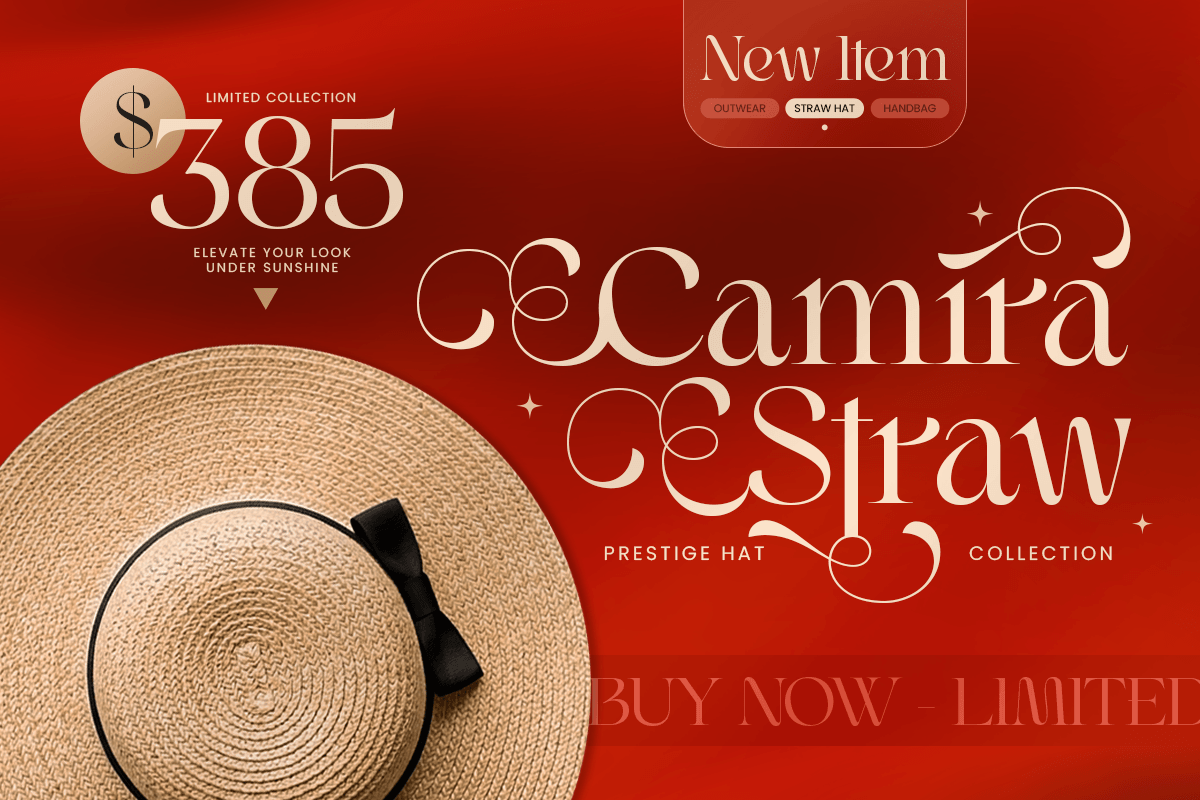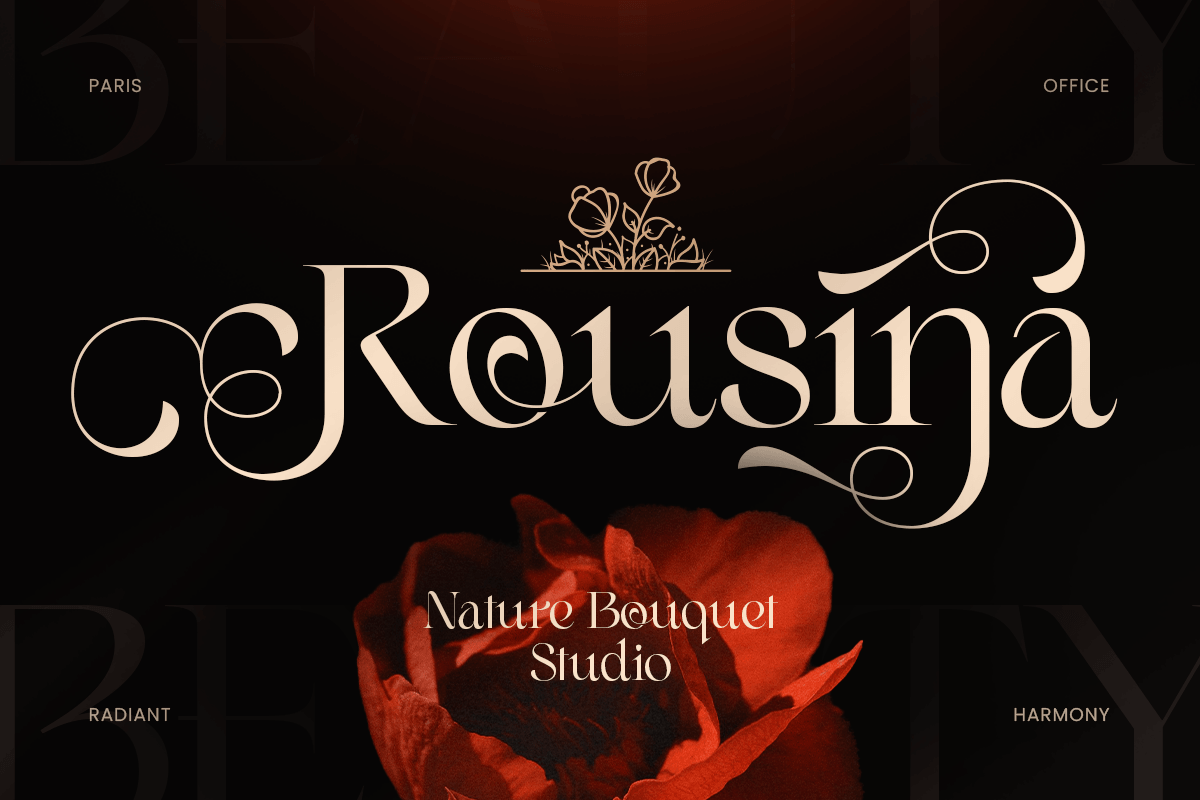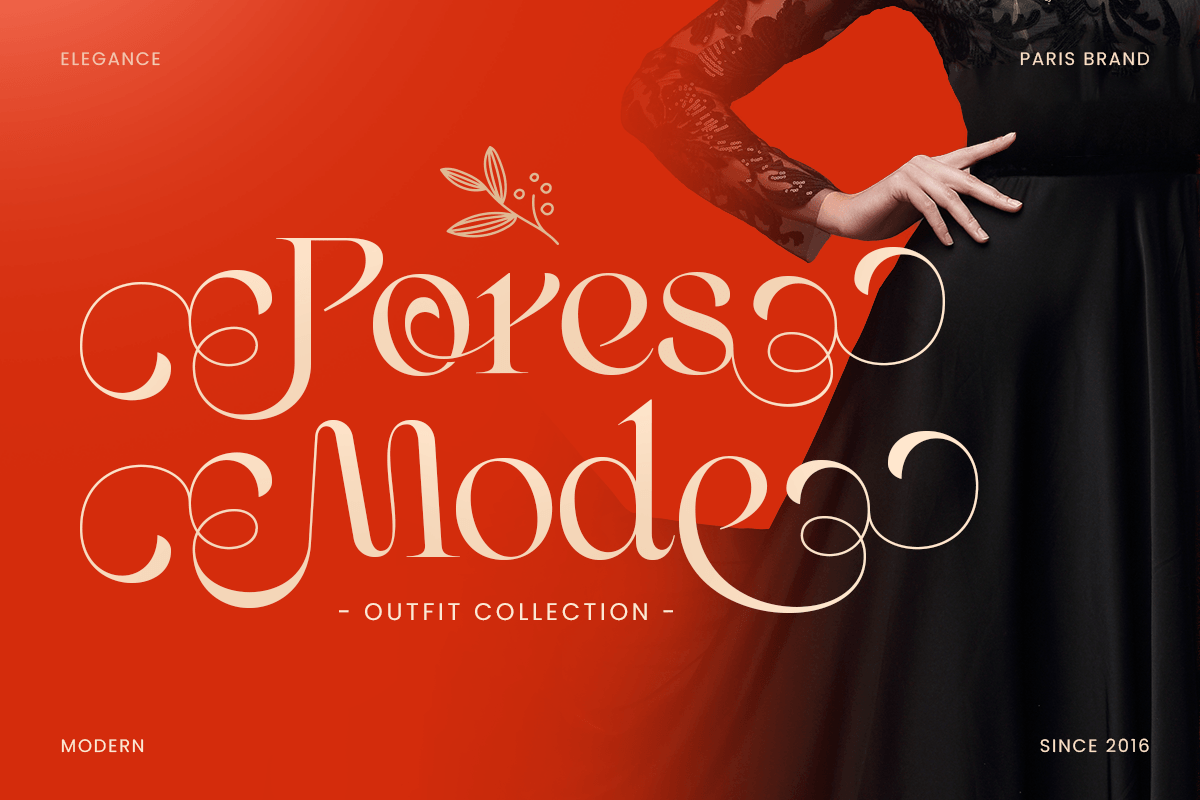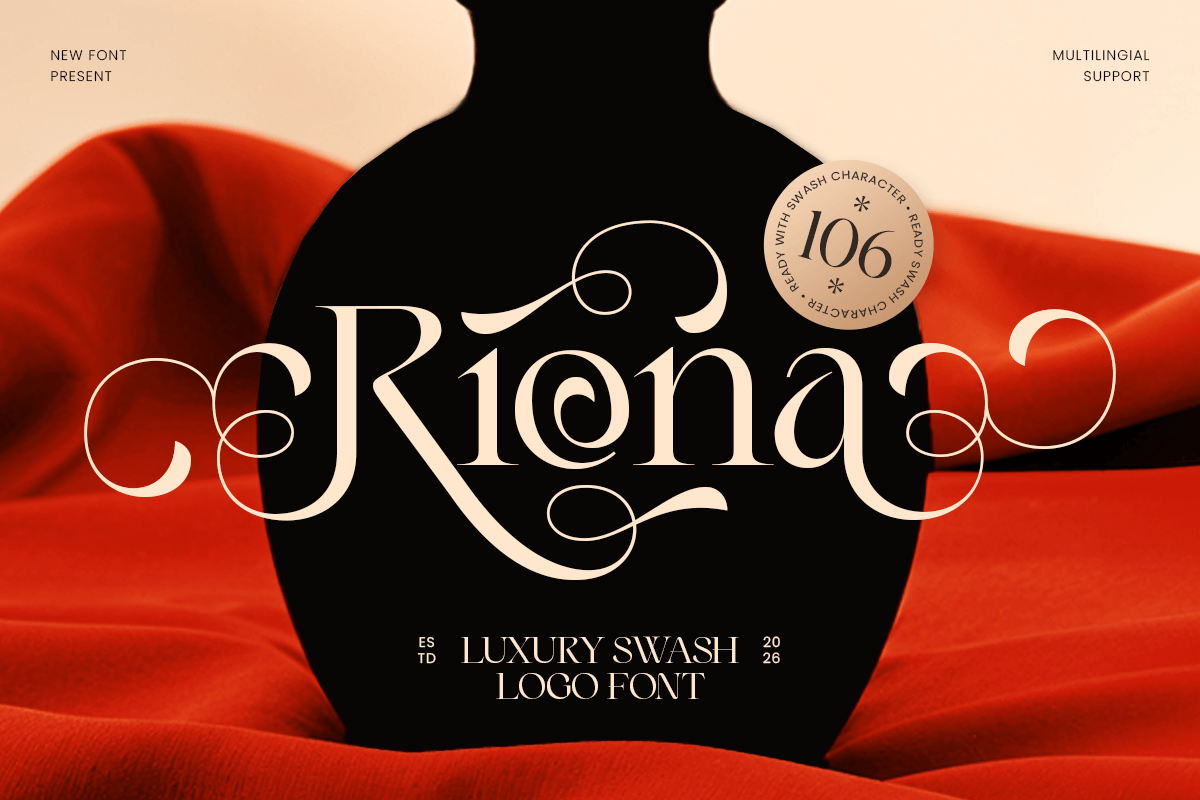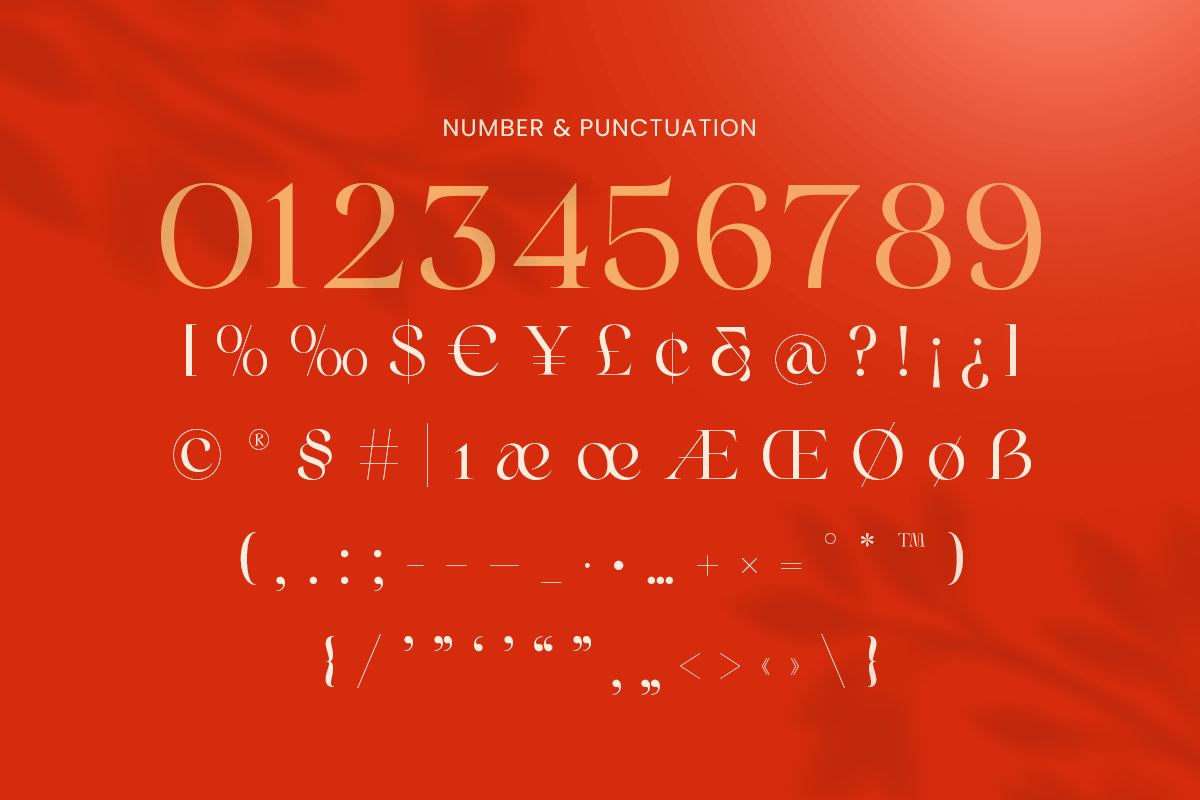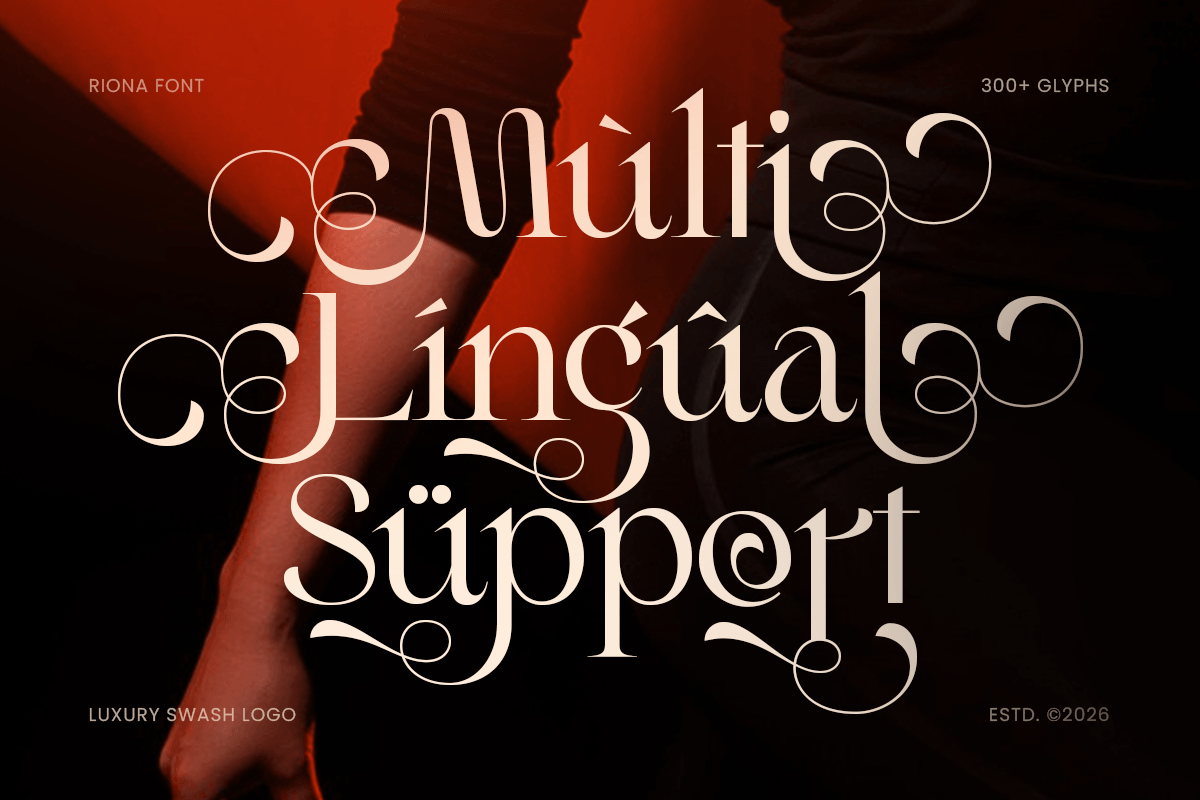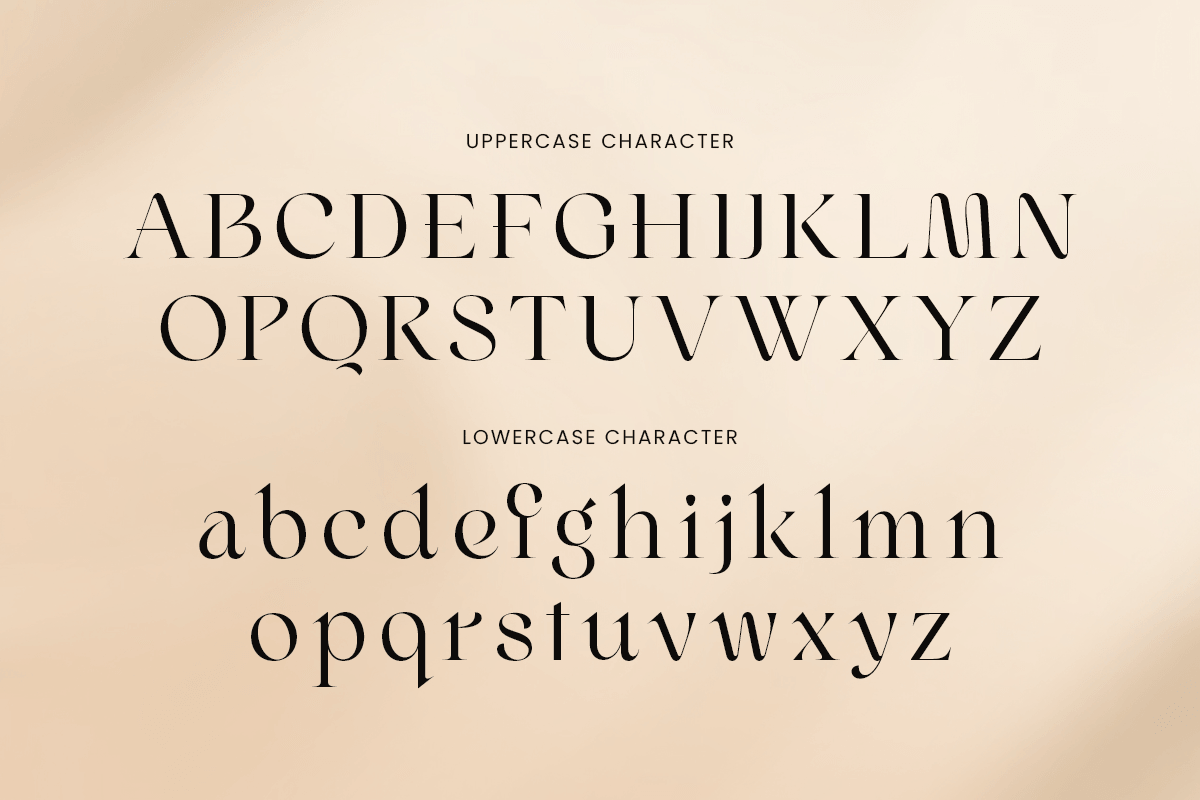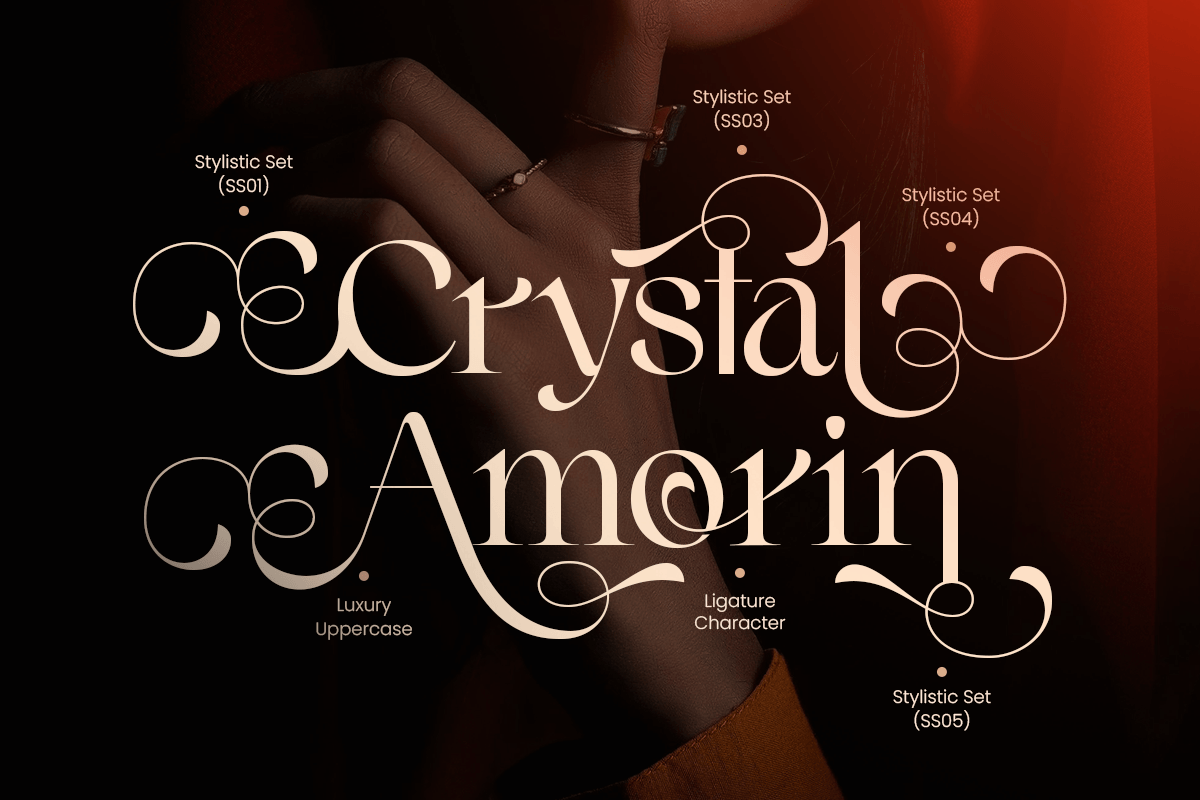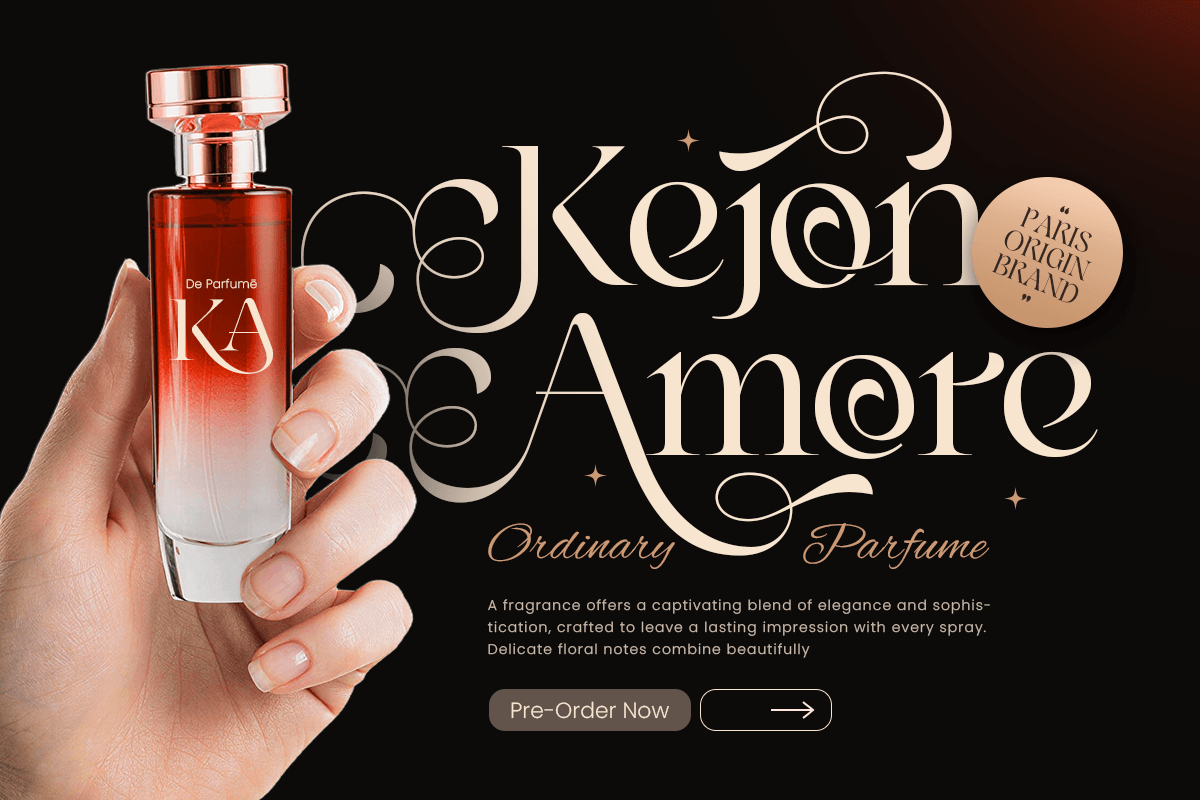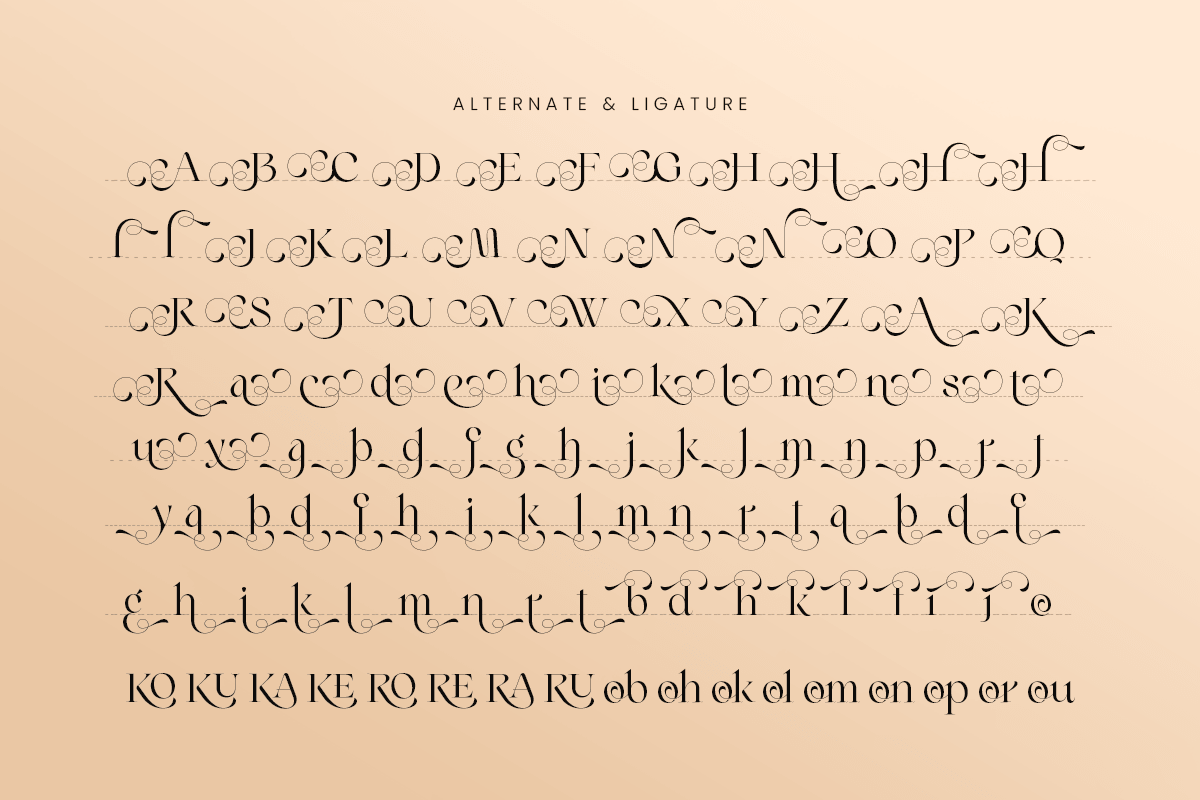
Riona - Luxury Swash Logo Font
Riona is a luxury swash logo font designed to bring refined elegance and expressive charm to premium typography. With graceful swash details, polished letterforms, and a sophisticated visual rhythm, this typeface creates a high-end tone that feels stylish, feminine, and instantly brand-ready.
Built for logo-focused branding, Riona works beautifully across wordmarks, brand identity systems, website headers, packaging, labels, invitations, editorials, signage, presentations, and upscale marketing visuals. Its swash elements add a signature-like flourish that gives every composition a luxurious, custom feel while keeping the overall look clear and polished across both digital and print design.
Whether you’re building a fashion identity, elevating a beauty brand, designing romantic packaging, or crafting elegant promotional materials, Riona provides a refined swash foundation that makes your typography feel premium, graceful, and unforgettable.
Inspiration Behind Riona
Riona is inspired by luxury branding and expressive swash typography—where elegant curves, decorative movement, and modern refinement create a distinctive premium signature. The design focuses on graceful rhythm and polished styling to support upscale identities with a soft, stylish, and timeless presence.
Riona Font Features:
- Luxury swash letterforms optimized for logo and wordmark design
- Elegant structure with premium, signature-style character
- Graceful swash details for stylish and memorable branding
- Uppercase, lowercase, numerals, and punctuation included
- OpenType features for polished professional typesetting
- Luxury logos, wordmarks, and premium brand identity systems
- Fashion, beauty, skincare, fragrance, and boutique branding
- Packaging, labels, invitations, and romantic promotional design
- Editorial layouts, website headers, and elegant headline styling
- Social media campaigns, presentations, and upscale marketing assets